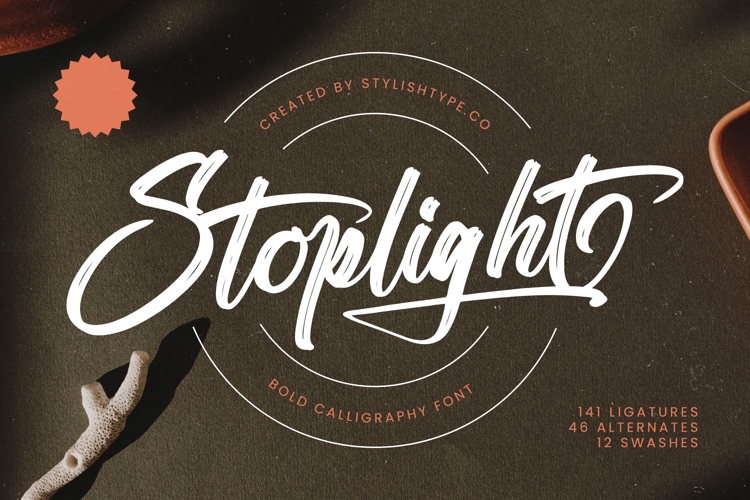
Stoplight - Bold Calligraphy Font
Ignite your designs with unparalleled expressive power. Introducing Font Stoplight - Bold Calligraphy Font Script, a dynamically crafted typeface that marries the raw energy of hand-drawn brush strokes with sophisticated calligraphic elegance. Its striking visual presence, characterized by bold, sweeping lines and an authentic texture, ensures your message is not just seen, but felt. This font radiates a confident, artistic charm, perfect for projects demanding a touch of modern flair and undeniable impact.
Unlock a world of creative possibilities with remarkable adaptability. Font Stoplight - Bold Calligraphy Font Script comes fully equipped with a wealth of OpenType features, including numerous ligatures, alternates, and swashes that allow for truly customized and unique typographic compositions. With its extensive multilingual support, Font Stoplight - Bold Calligraphy Font Script adapts seamlessly across global markets, making it incredibly versatile for international projects and ensuring your message resonates worldwide.